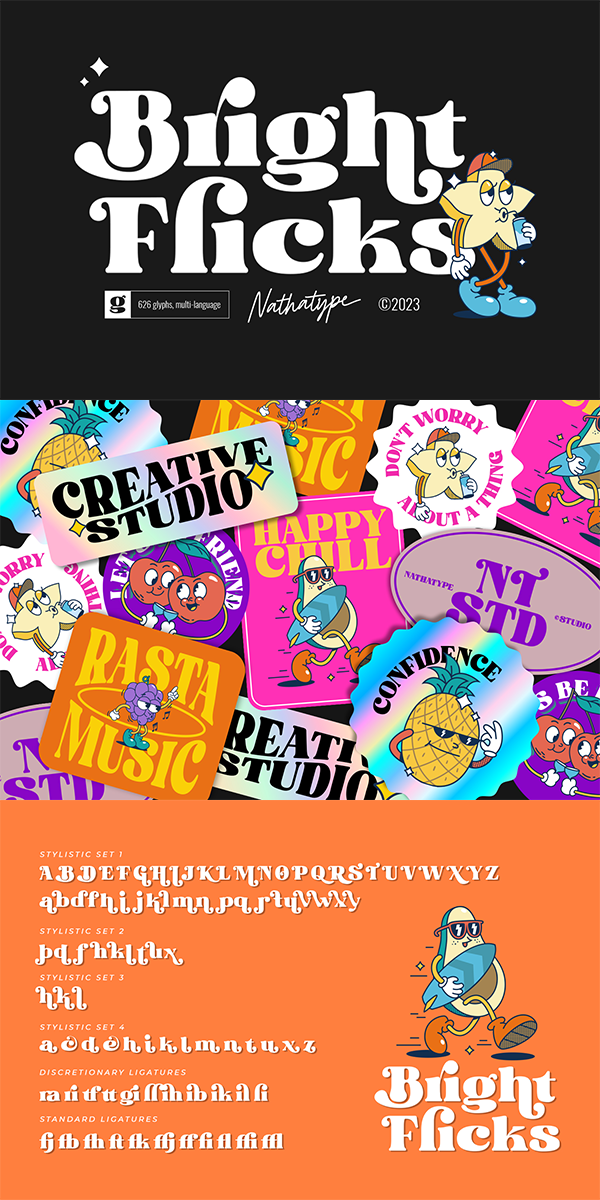
Bright Flicks Font
About Bright Flicks
Bright Flicks is a delightful script font that embodies a playful and whimsical spirit. With its rounded letterforms and charming swings at the ends of some letters, this typeface adds a joyful and lively touch to your designs.
• Stylistic Sets